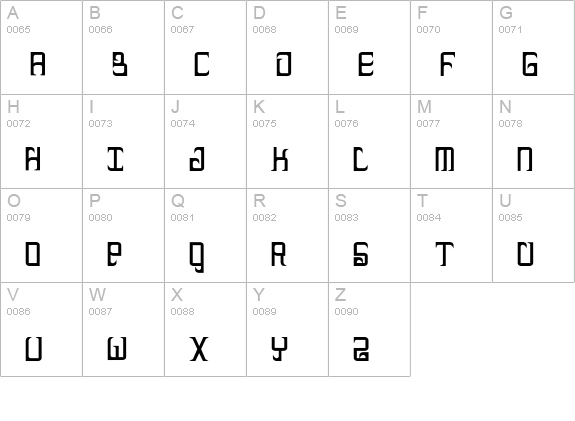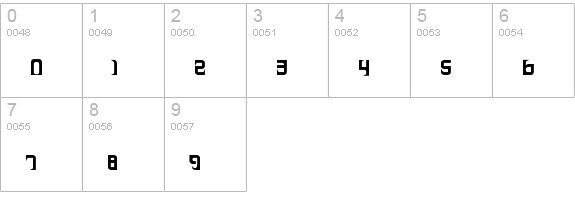
Heckler-Bold Font Details
Heckler-Bold is a strong, high-contrast variant in the Heckler typeface family \xE2\x80\x94 well suited to headlines, attention-grabbing titles, and strong calls-to-action.
Heckler-Bold is a stunning and impactful font that exudes confidence and strength. Its bold and assertive letterforms make a bold statement, perfect for grabbing attention and making a lasting impression. The thick strokes and sharp edges of this font give it a modern and edgy feel, making it ideal for designs that demand a strong and powerful presence. With its versatility, Heckler-Bold can be used across a wide range of design projects, from logos and headlines to posters and packaging. Its clean and legible design ensures that your message is always clear and easily readable, while still maintaining a sense of uniqueness and personality. One of the best things about Heckler-Bold is that it is available for free download at FontsMarket.com. This means that you can easily access this amazing font and start using it in your designs right away, without any cost. Whether you are a professional designer or a hobbyist, Heckler-Bold is a valuable addition to your font library. So why wait? Download Heckler-Bold today and unleash the power of this striking font in your next design project. With its free availability and incredible design, Heckler-Bold is a must-have for anyone looking to make a bold statement.